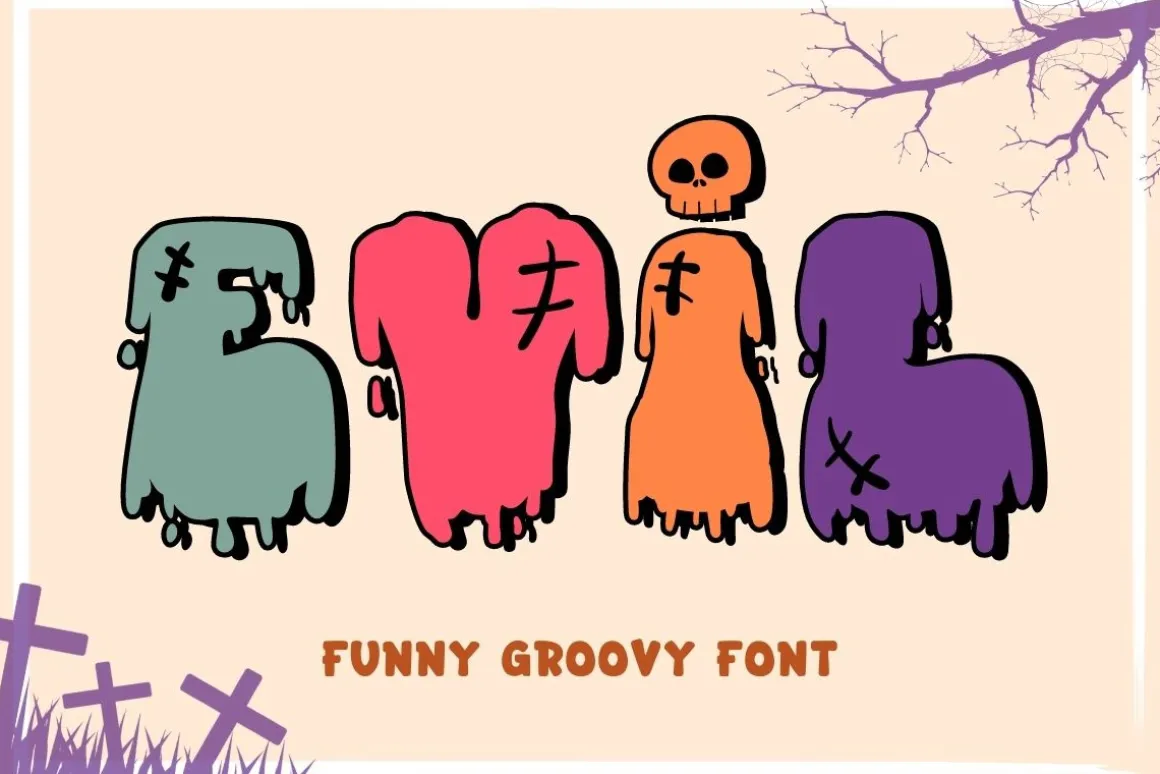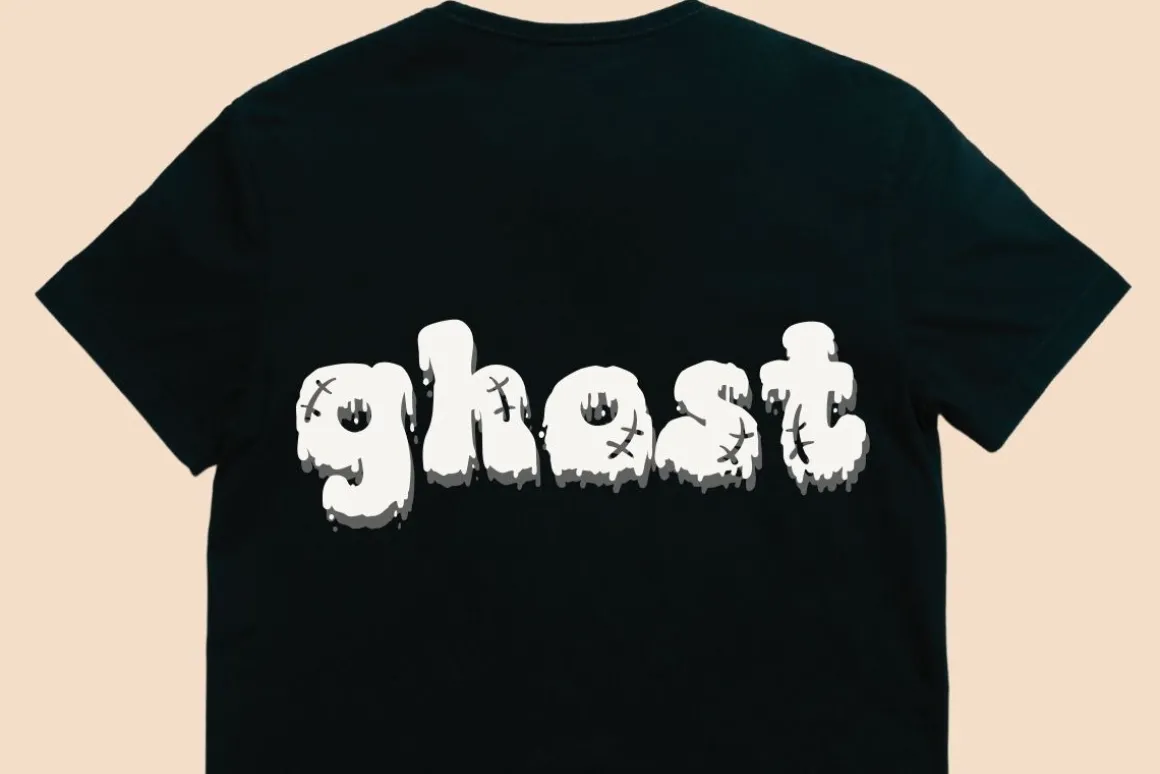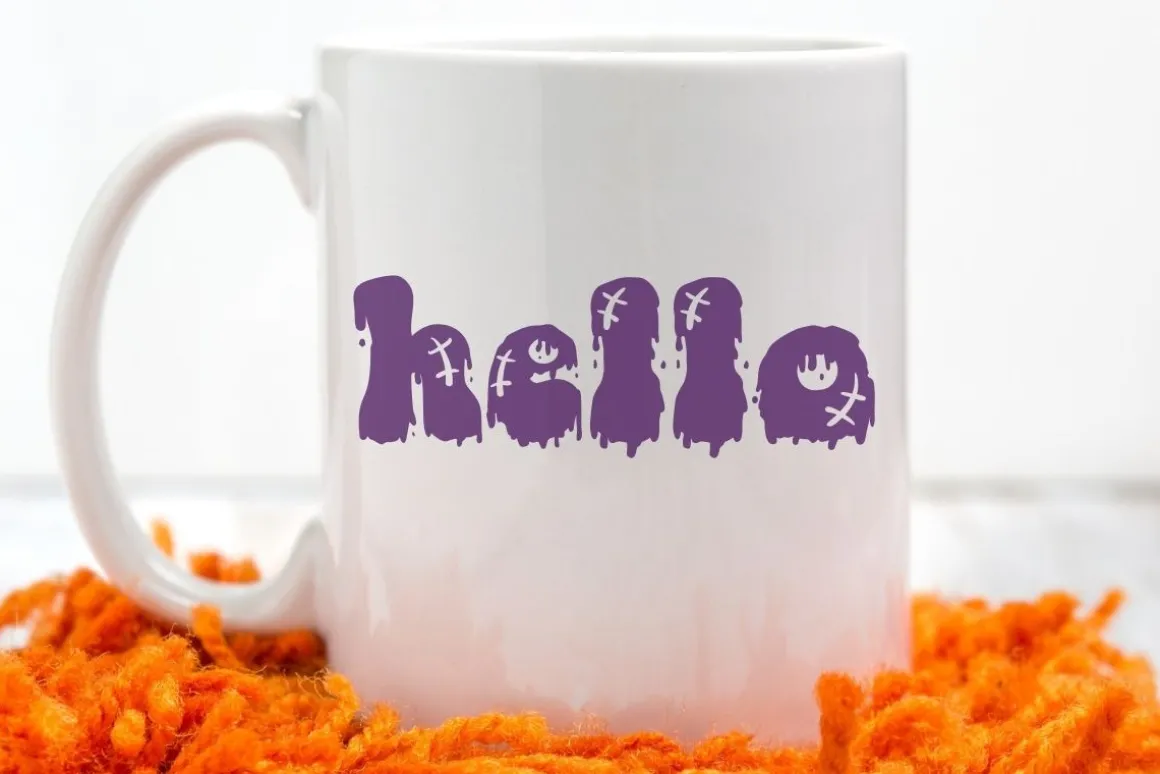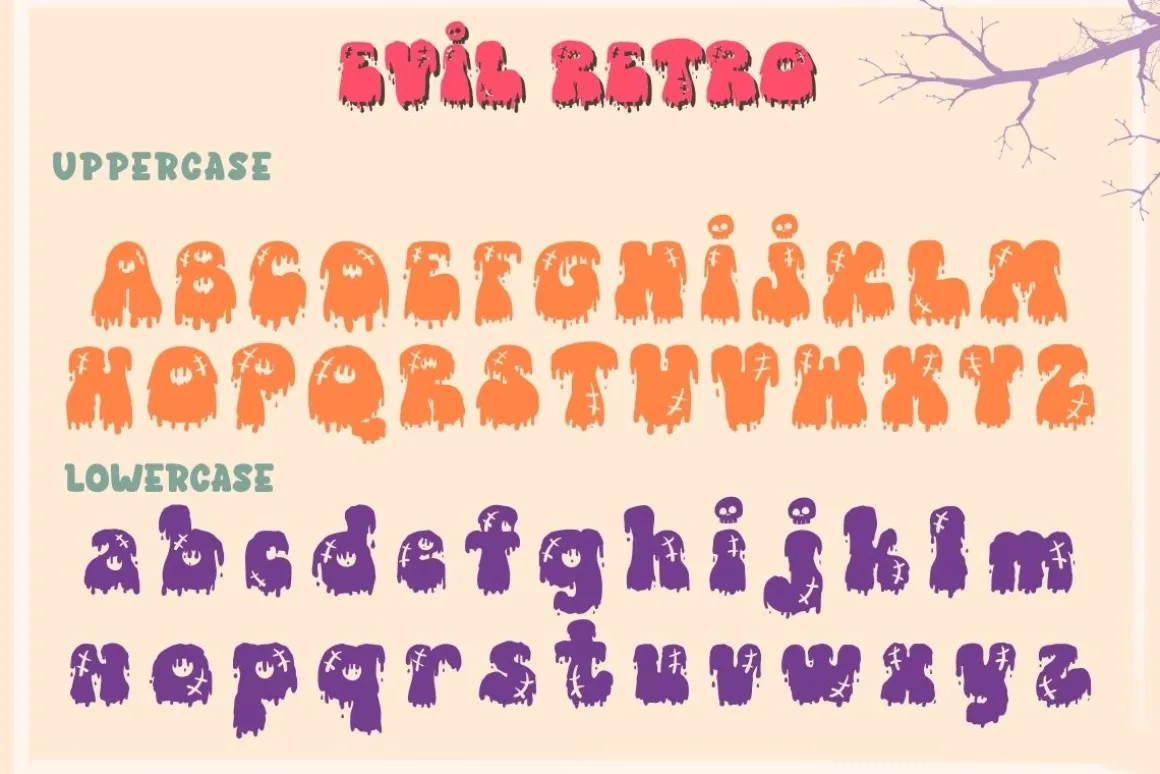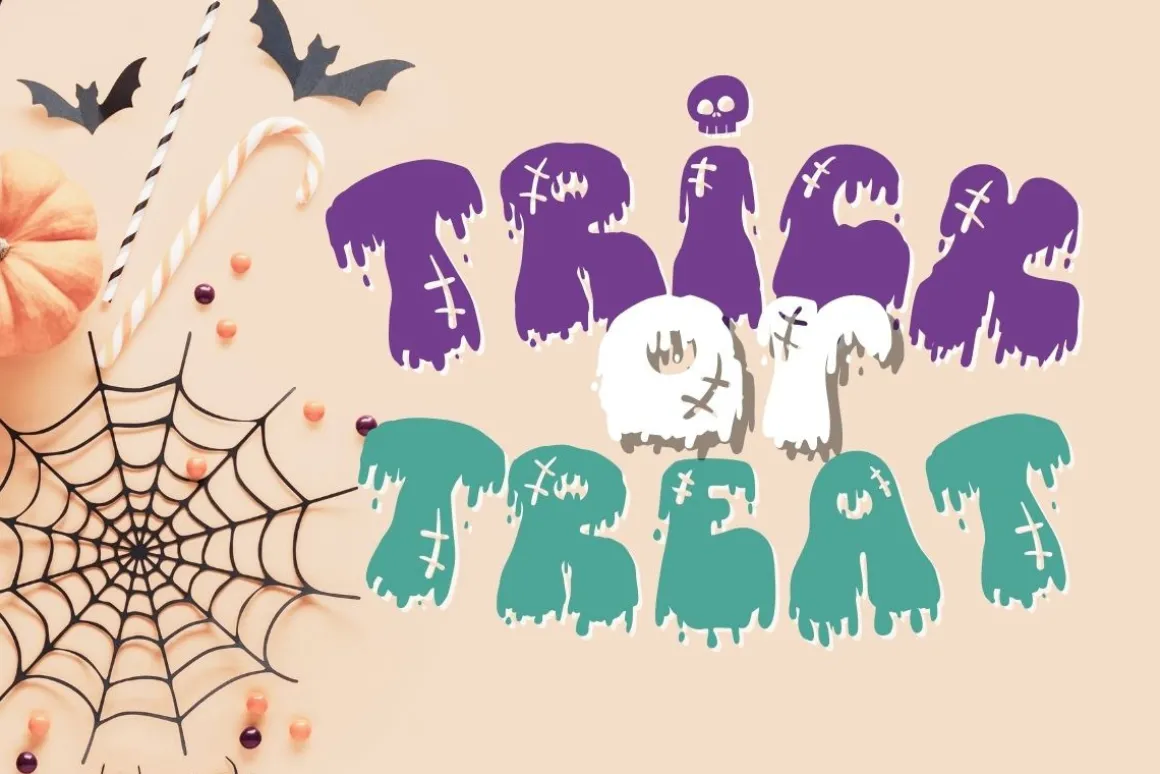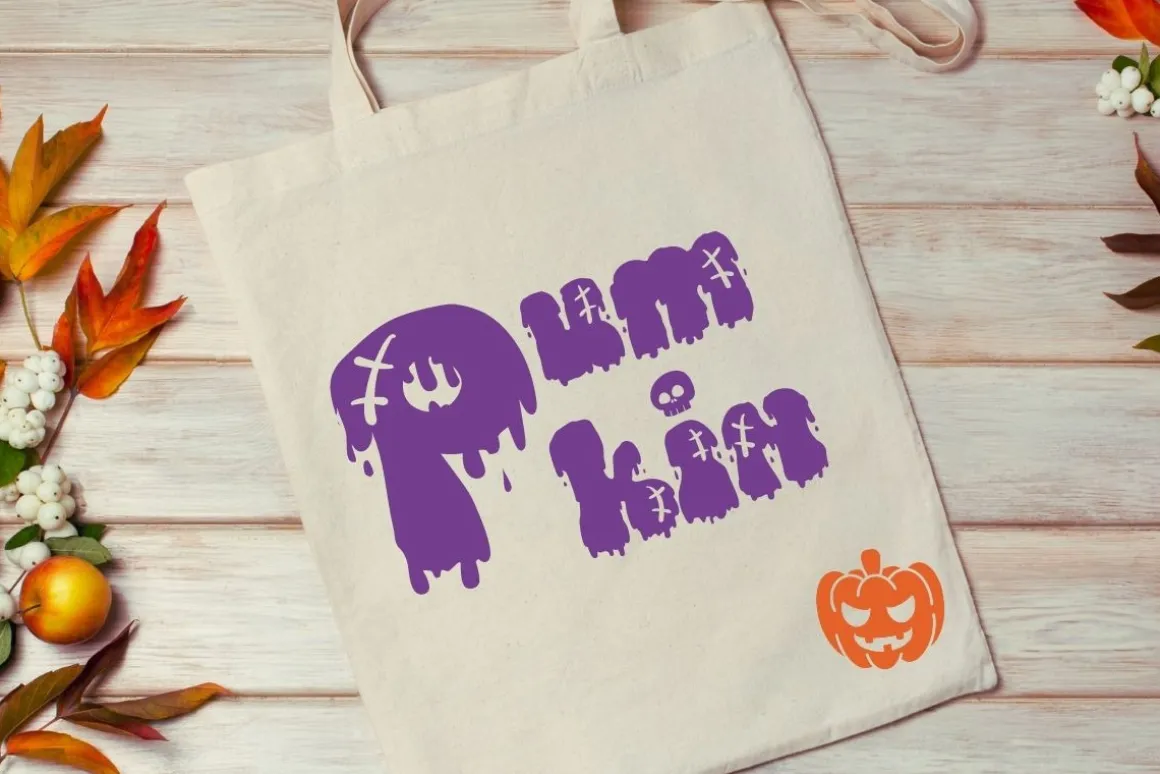
Get ready to add a spine-chilling touch to your Halloween and horror-themed projects with the Evil Groovy Display Font. This unique font style is meticulously crafted to resemble a mesmerizing drop of blood, creating a captivating and eerie atmosphere that’s perfect for all your chilling designs.